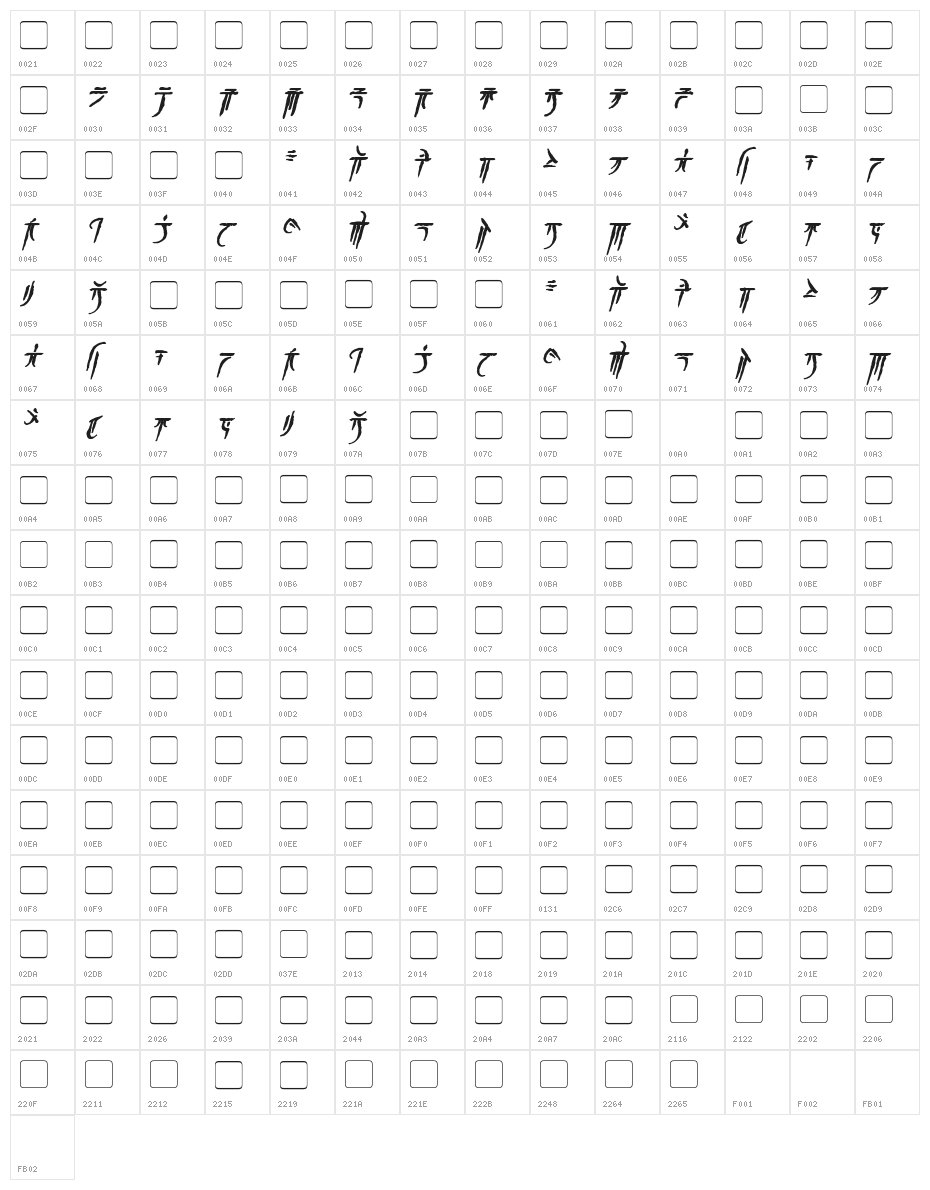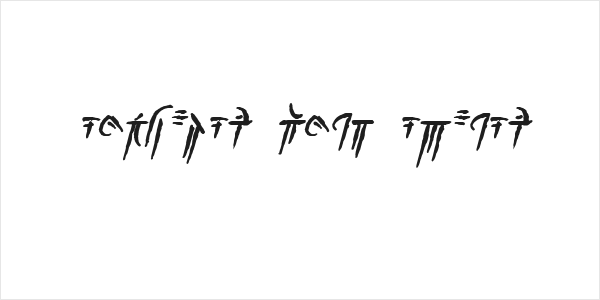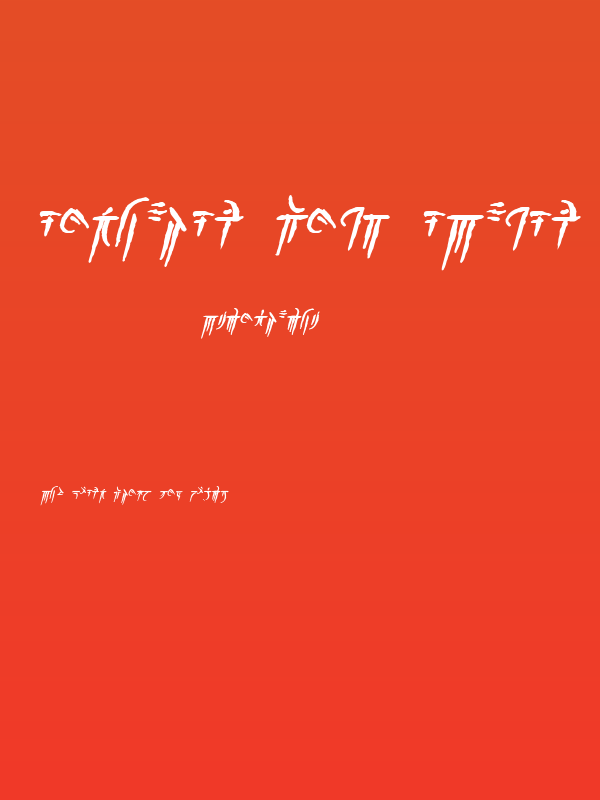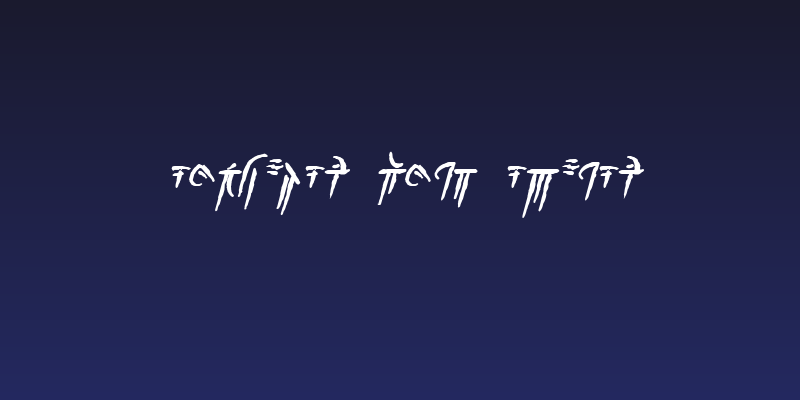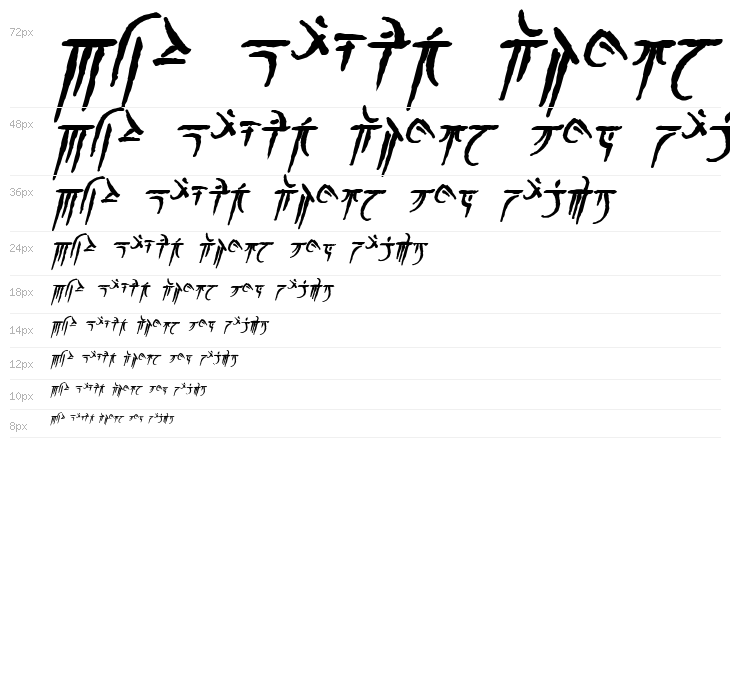
Iokharic Bold Italic Font
Iokharic Bold Italic Description
This font features a bold and italicized style with a distinct, decorative flair. The characters are designed with sharp, angular strokes that give them a dynamic and energetic appearance. The script-like quality suggests a handwritten influence, yet maintains a structured and consistent form throughout. The boldness of the font ensures strong visibility, making it suitable for attention-grabbing designs. The italic slant adds a sense of motion and fluidity, enhancing its expressive nature. Each character is uniquely crafted, contributing to the overall artistic and ornamental style of the font.
| Proposed Projects | Ideal for fantasy-themed projects, game design, book covers, posters, and artistic branding. |